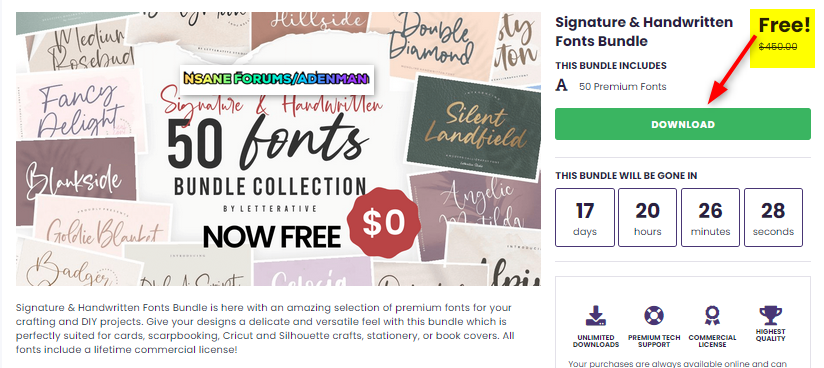
Adenman Posted March 21, 2022 Share Posted March 21, 2022 The Signature & Handwritten Fonts Bundle is great font collection from letterativestudio for anyone who wants to add a personal touch to their projects while still being able to use the same font style over and over again without having any repeated letters or words like a lot of other font collections have. You will have access to many different types of lettering formats, such as cursive and print handwriting. Signature & Handwritten Fonts Bundle is here with an amazing selection of premium fonts for your crafting and DIY projects. Give your designs a delicate and versatile feel with this bundle which is perfectly suited for cards, scarpbooking, Cricut and Silhouette crafts, stationery, or book covers. All fonts include a lifetime commercial license! Get this Bundle with 50 amazing fonts, worth $450, for FREE! https://www.creativefabrica.com/product/signature-handwritten-fonts-bundle/ https://thesoftware.shop/signature-handwritten-fonts-bundle-commercial-license/ Link to comment Share on other sites More sharing options...